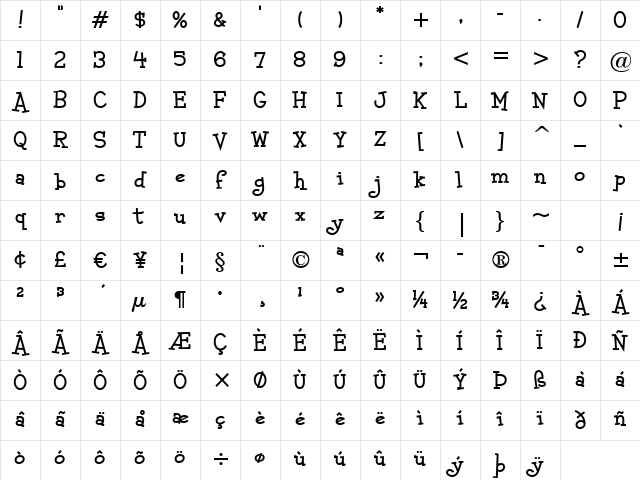
Complete Malihini Cuban BTN Bold glyph index. Displaying only characters natively supported by Malihini Cuban BTN Bold font.
Malihini Cuban BTN is a composed and adaptable typeface that performs quietly and consistently across a wide range of design contexts. Its bold stroke weight gives it real presence on the page.